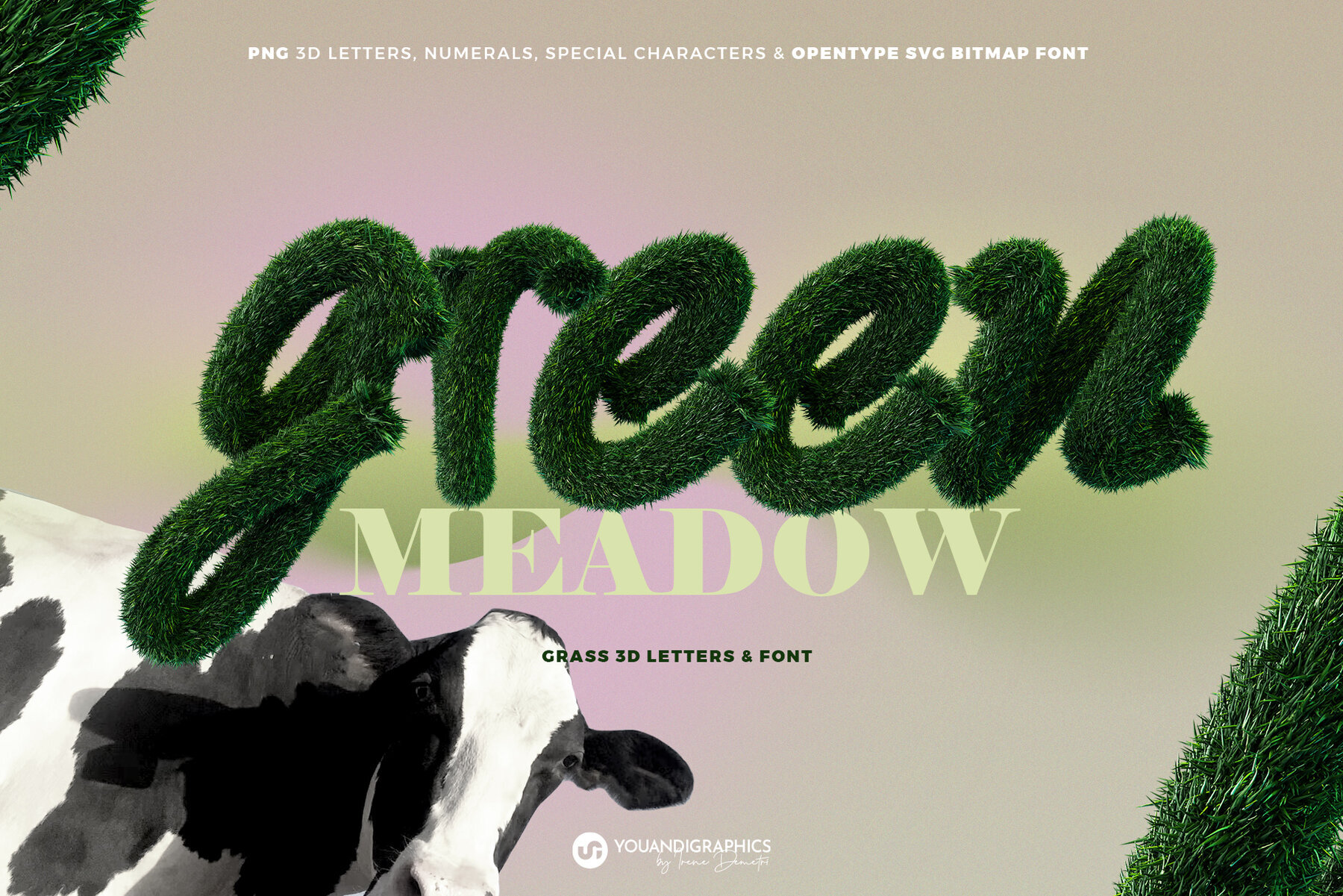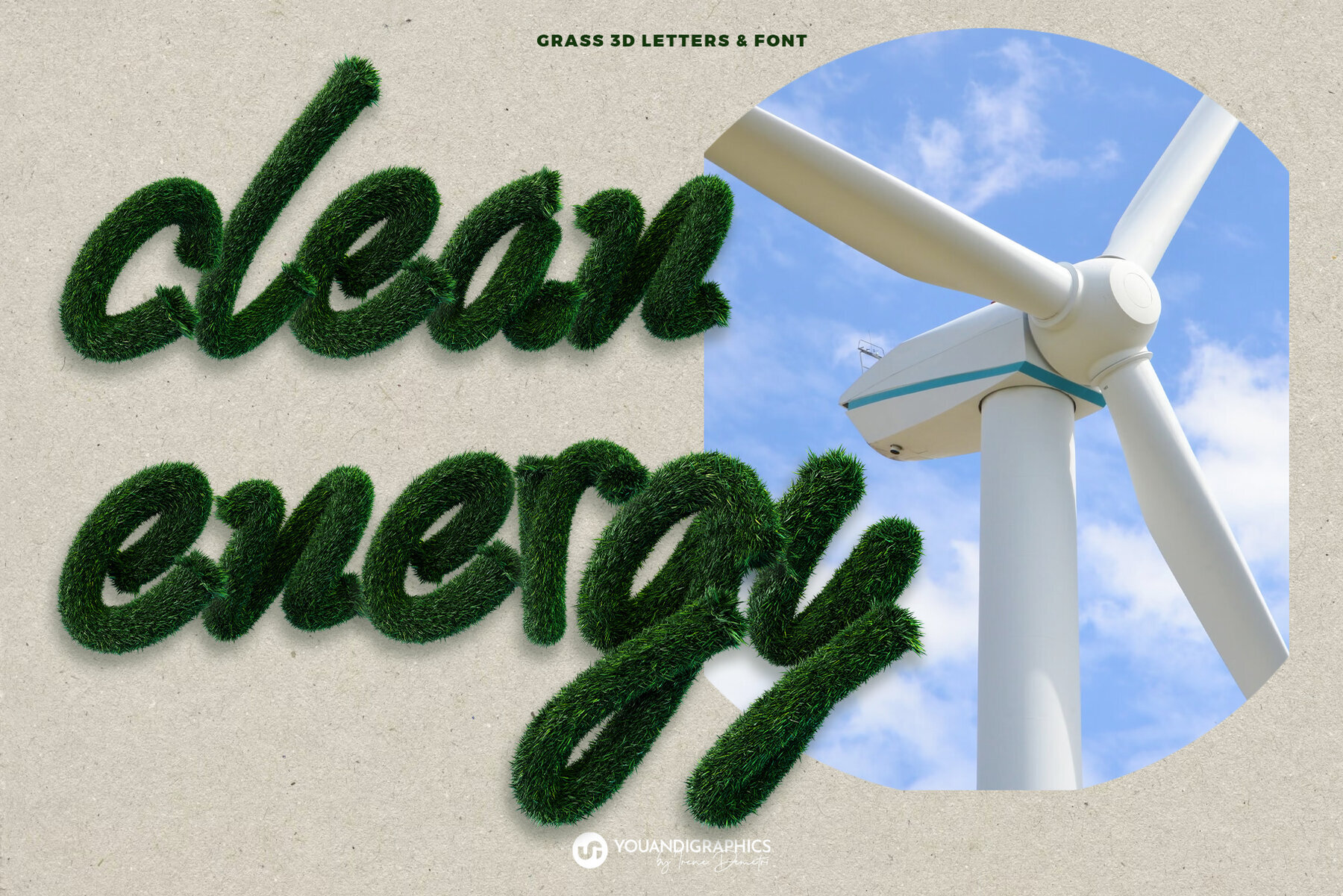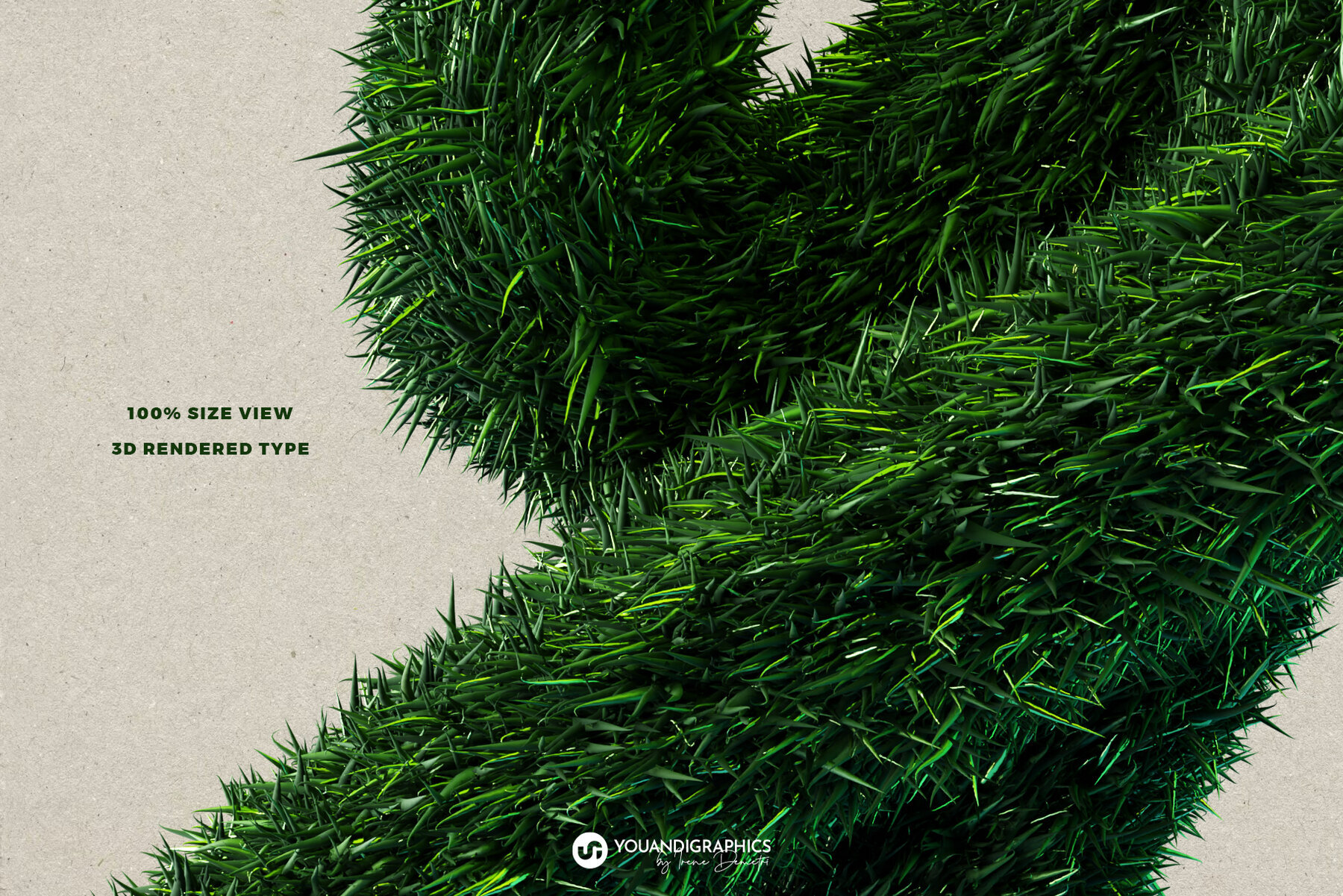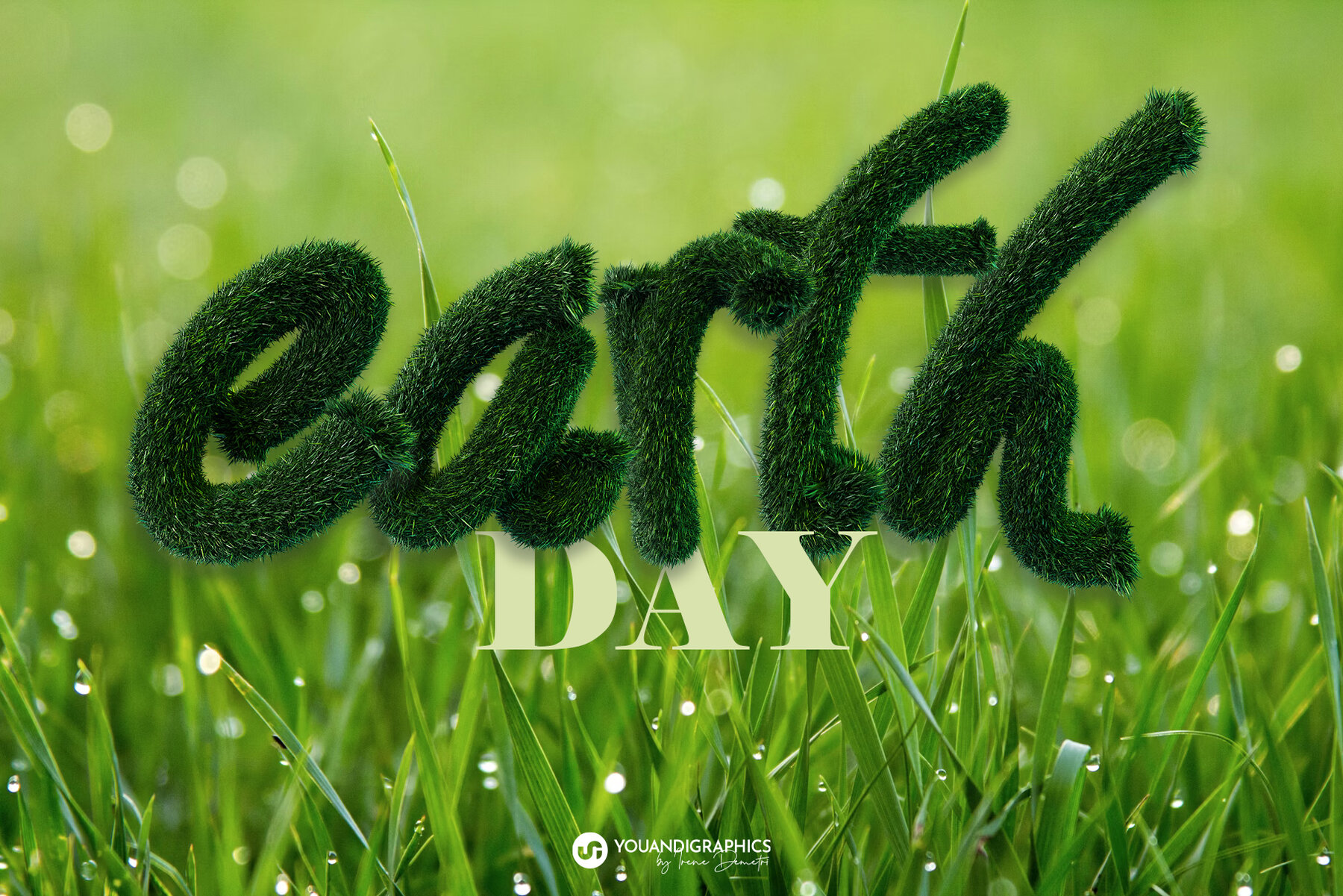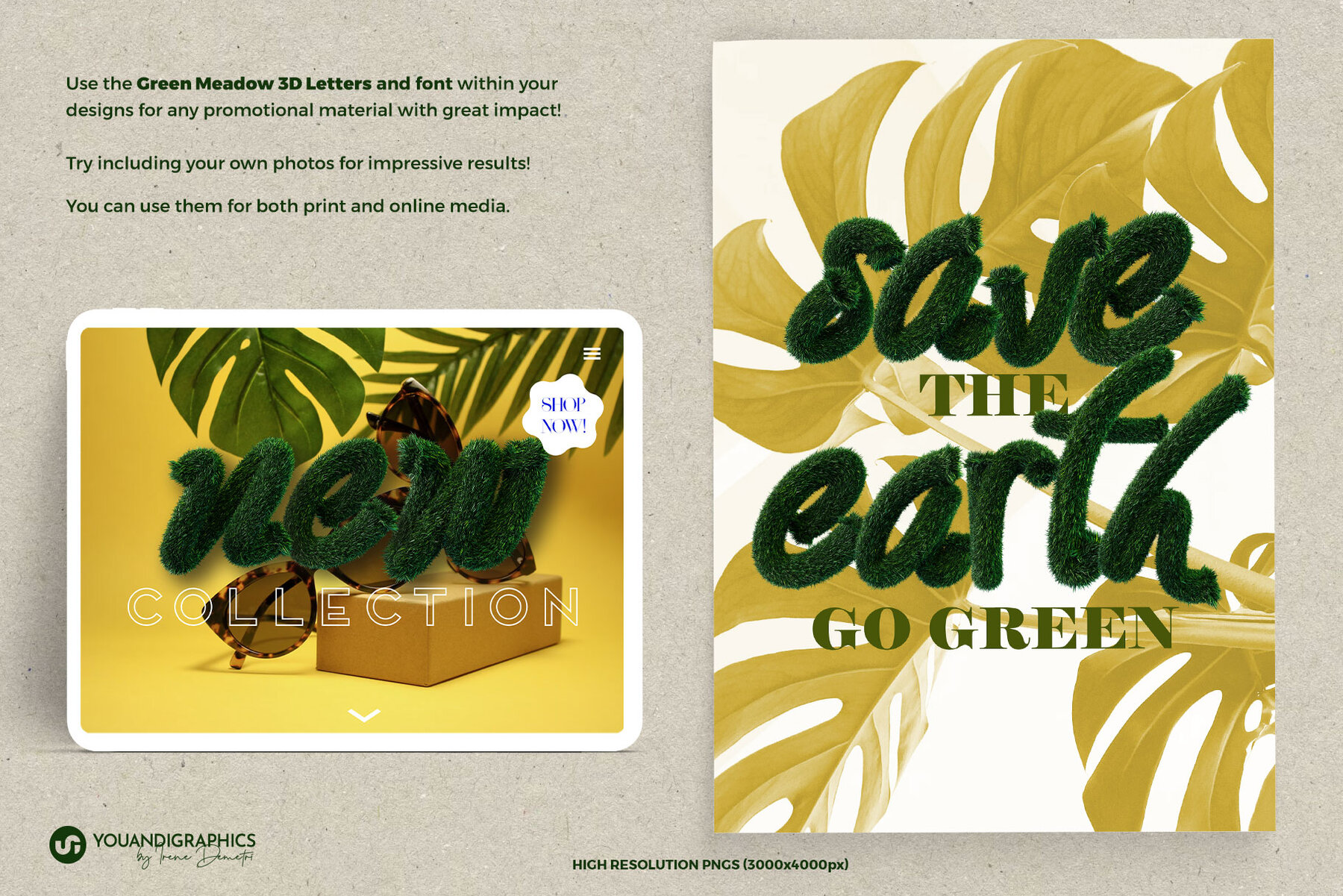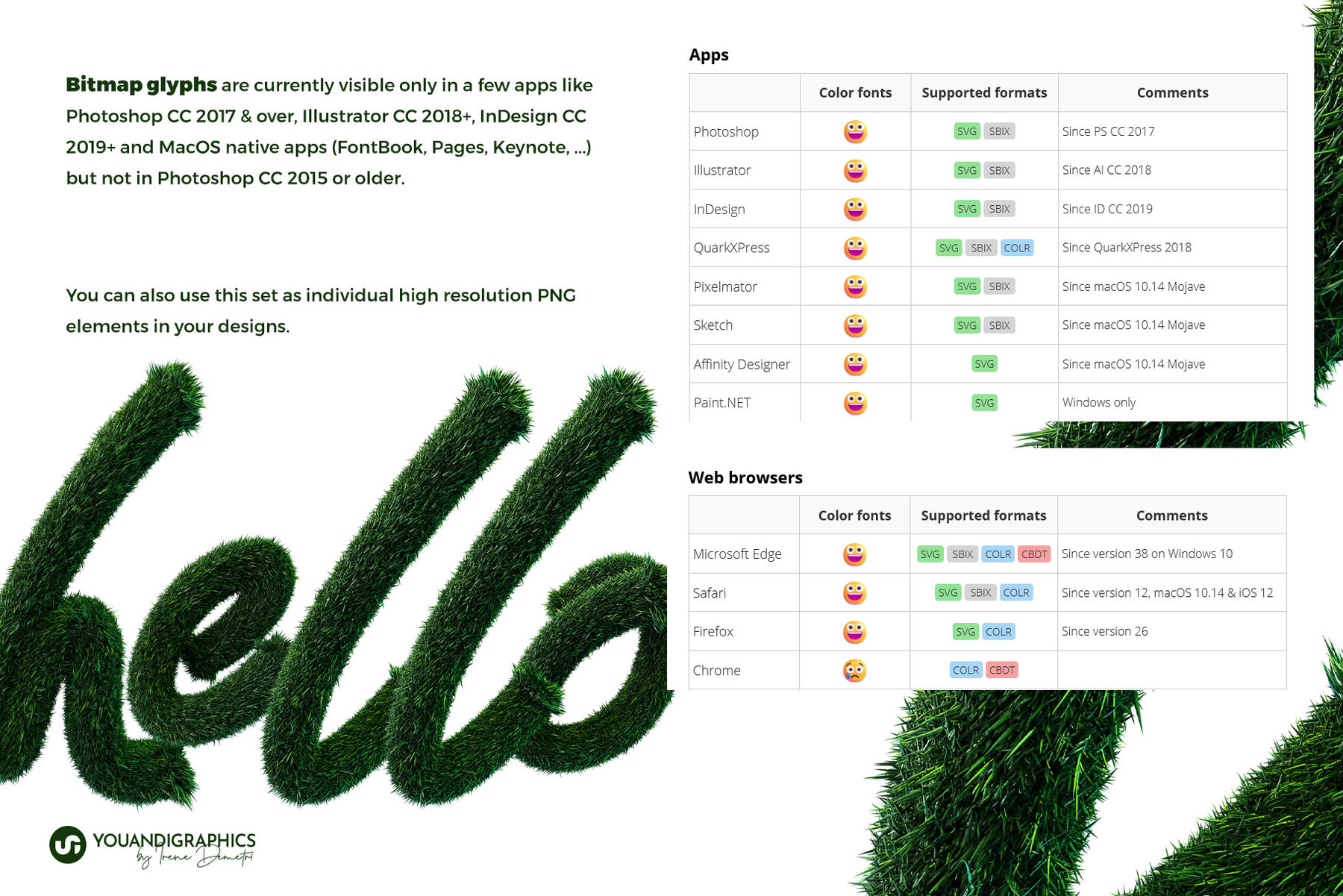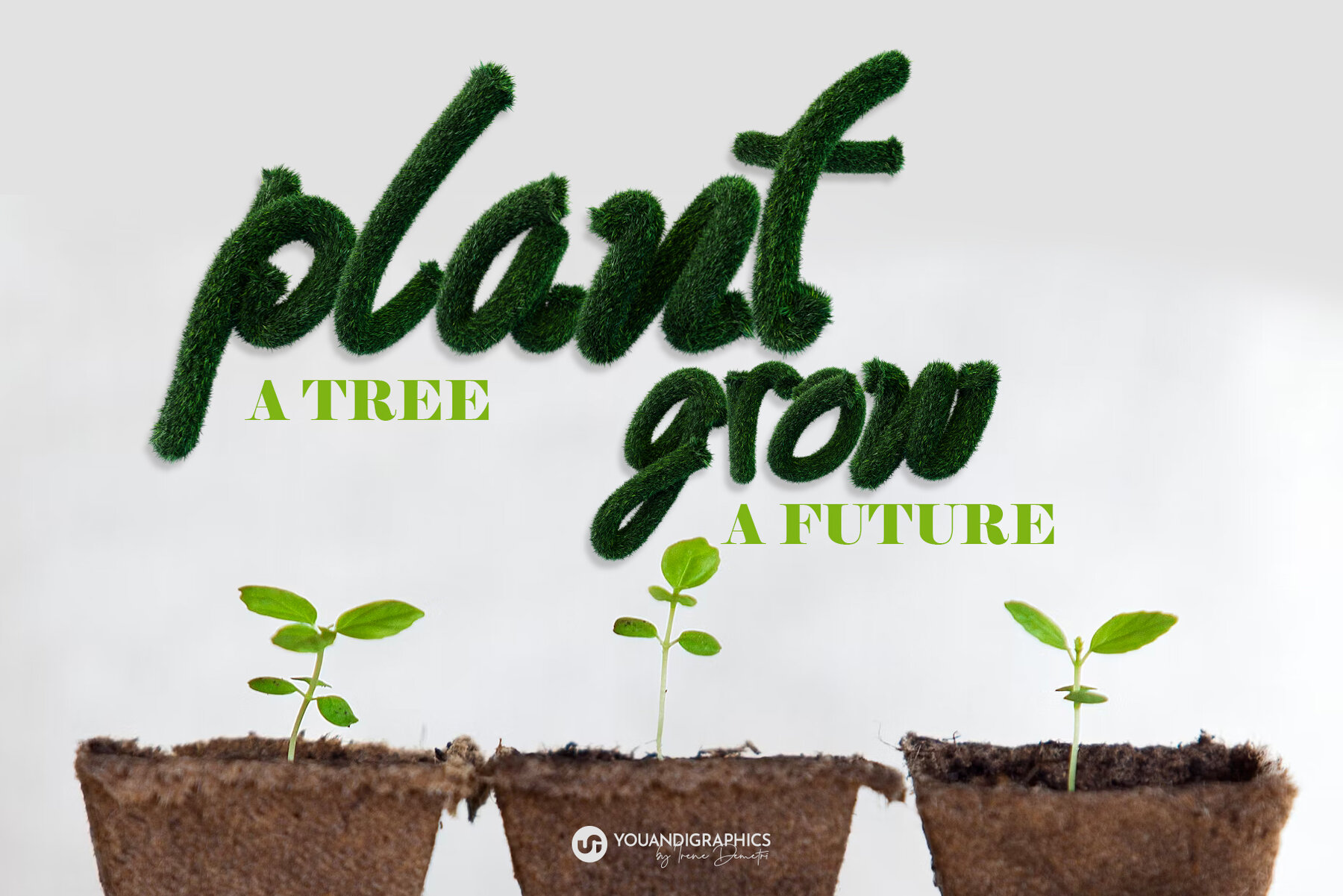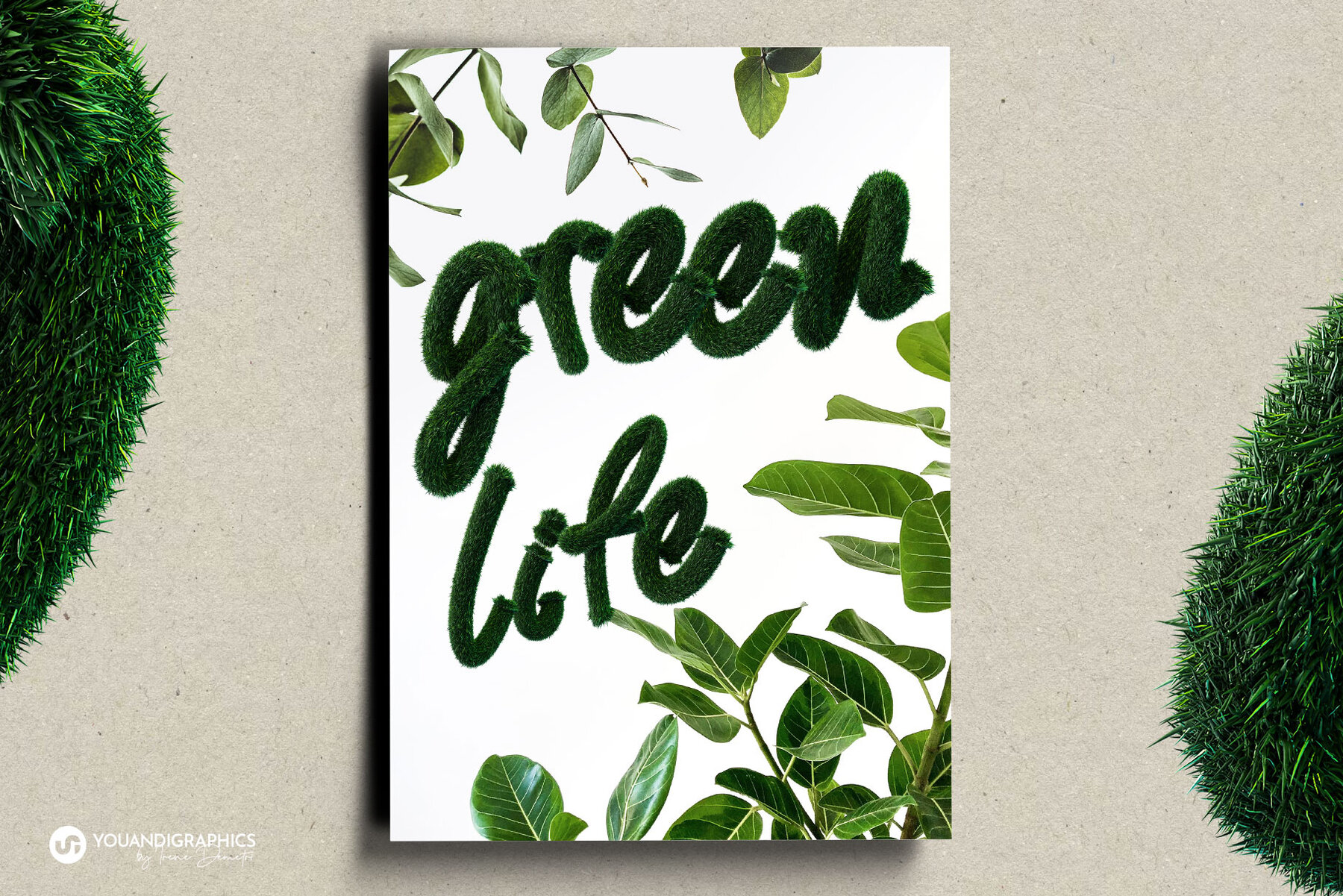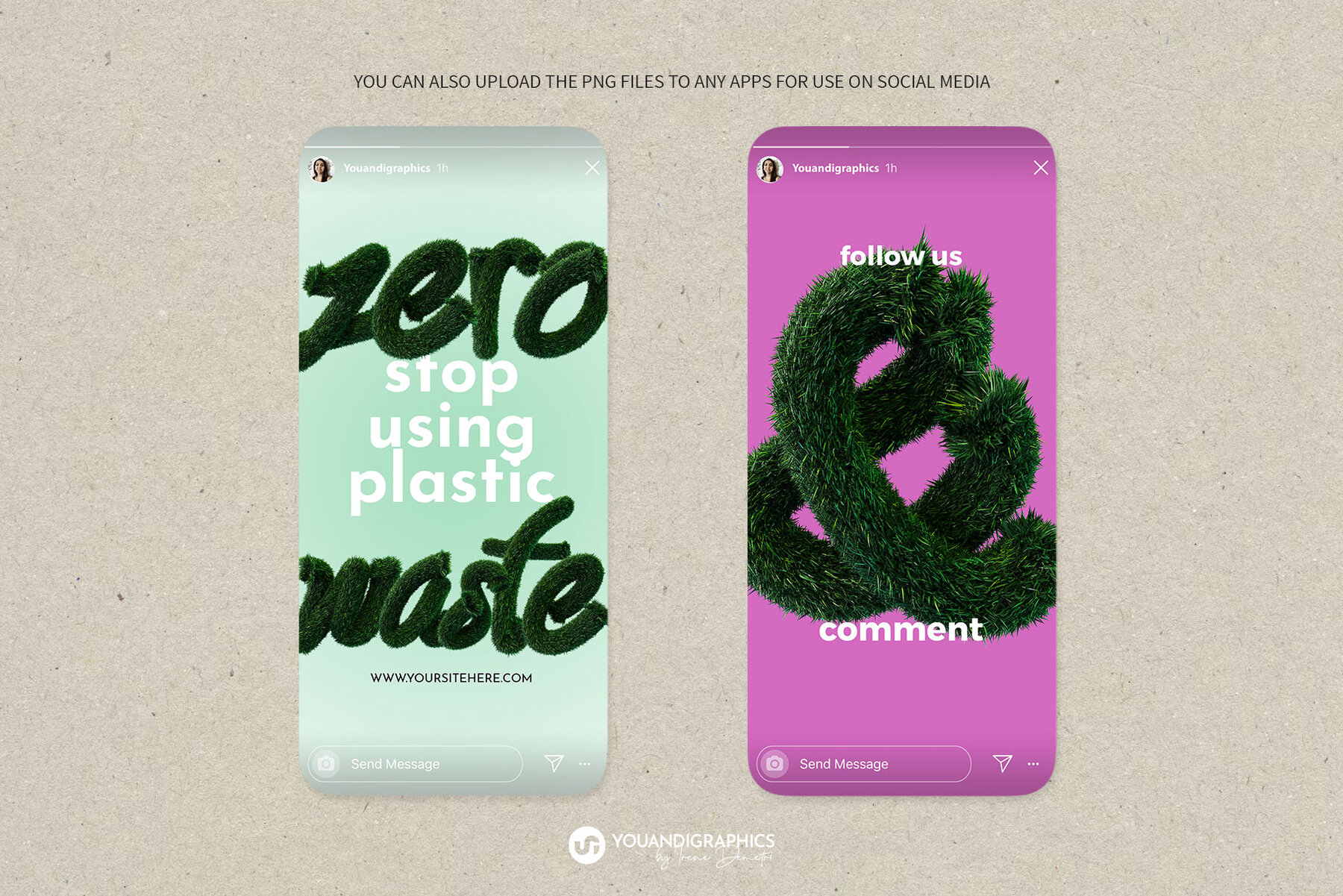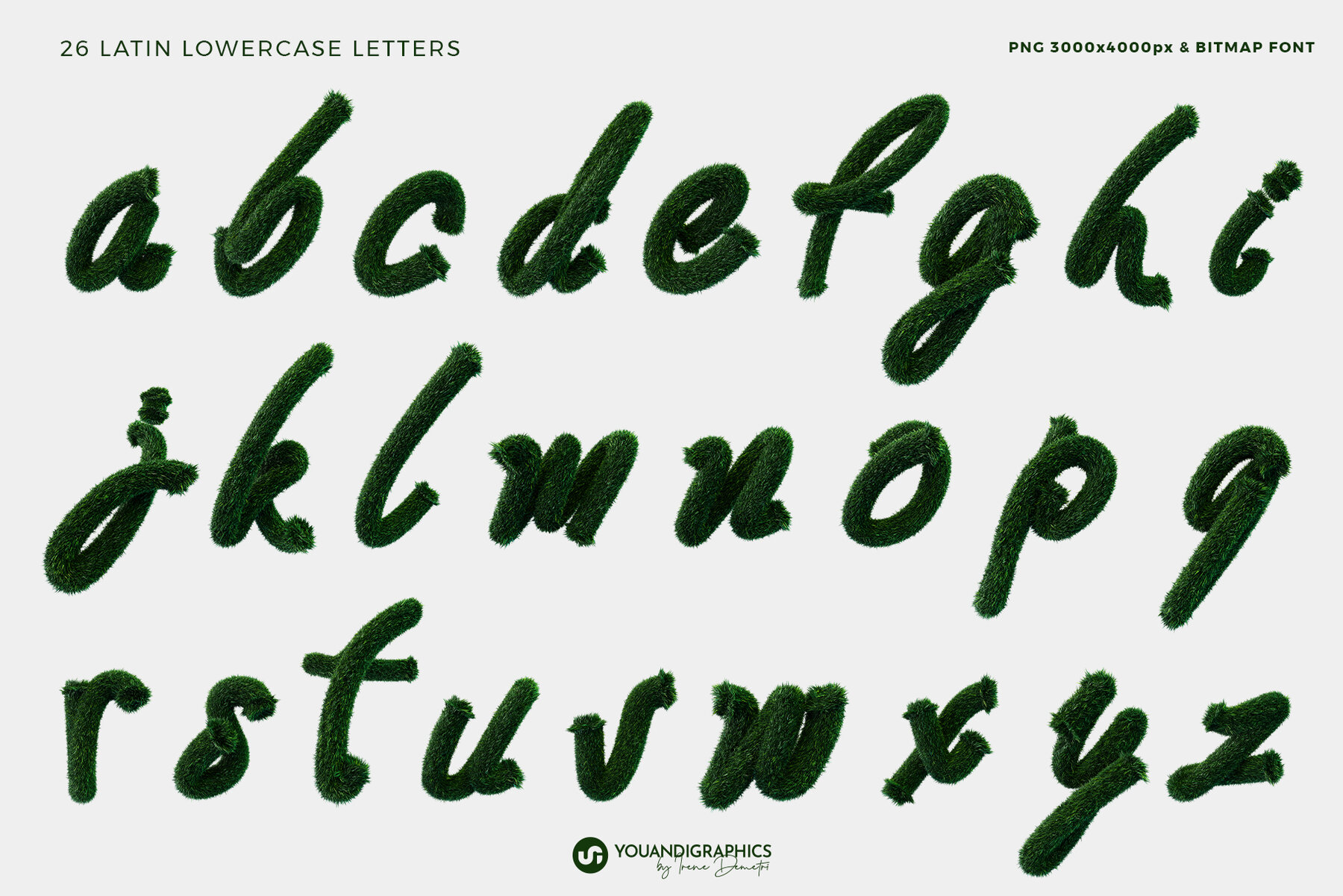
Green Meadow 3D Font and Letters captures the essence of a lush, serene landscape right in your designs. This unique set features high-quality, grass-textured 3D letters that evoke the freshness and beauty of nature. Each letter is intricately detailed, giving a realistic and vibrant grassy texture that is perfect for a close-up view. Ideal for eco-themed projects, branding, or posters, these letters add a natural touch that will resonate in any design endeavor.